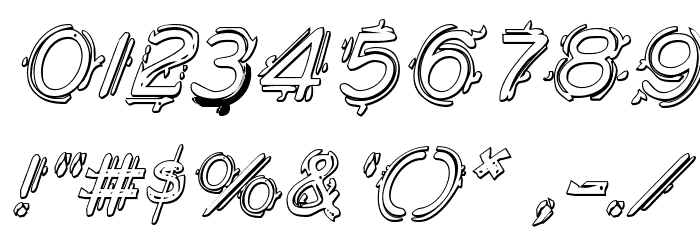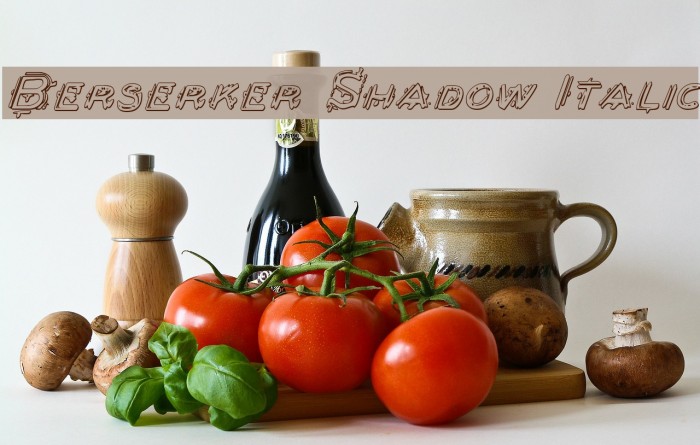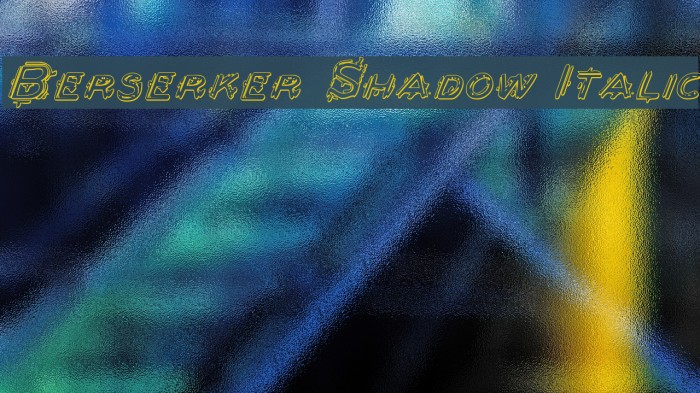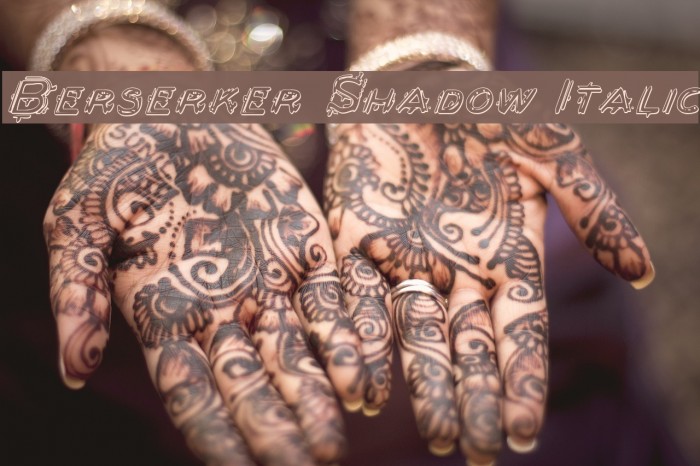
Berserker Shadow Italic Font
Berserker Shadow Italic Description
This font features a bold and dynamic style with a shadow effect that gives it a three-dimensional appearance. The italicized letters add a sense of motion and energy, making it stand out. Each character is outlined with a thick border, enhancing its visibility and impact. The font combines elements of both modern and decorative styles, with unique, edgy details that make it suitable for eye-catching designs. The uppercase and lowercase letters maintain a consistent style, while the numbers and special characters are equally bold and expressive.
A bold, italicized font with a shadow effect and dynamic, decorative style from Distorted Eroded fonts.
- Proposed Projects: Ideal for posters, logos, video game titles, and any project requiring a bold, eye-catching typeface.
- Overall Style: Modern, Decorative